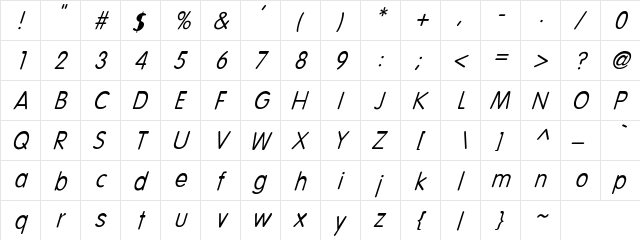
Vogue-Italic Regular
Design Context for Vogue-Italic Typeface
Vogue-Italic offers clean, dependable letterforms without strong stylistic allegiance, making it a practical choice for designers who need flexibility. The slanted form adds forward momentum and visual energy.
Pro Tip: Use Vogue-Italic for emphasis, pull quotes, and subheadings where its slanted energy can add rhythm to the layout.